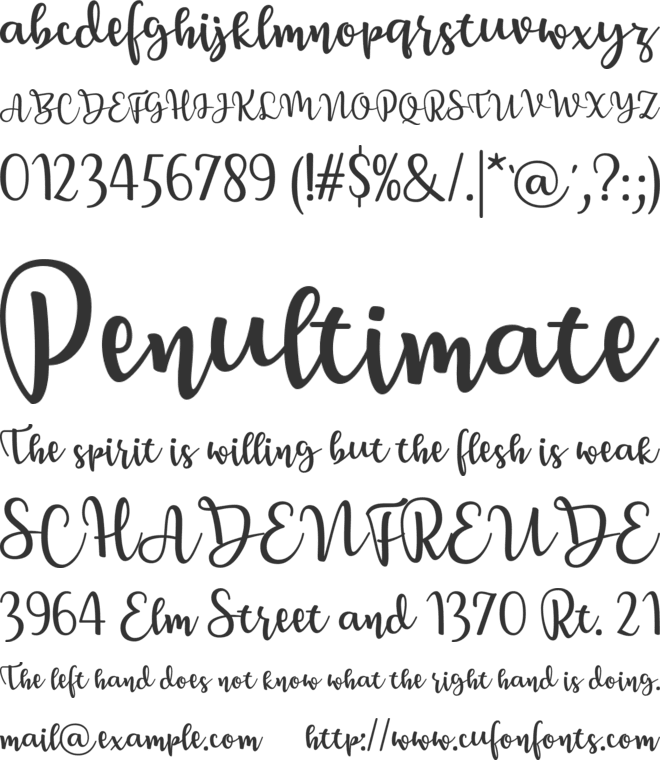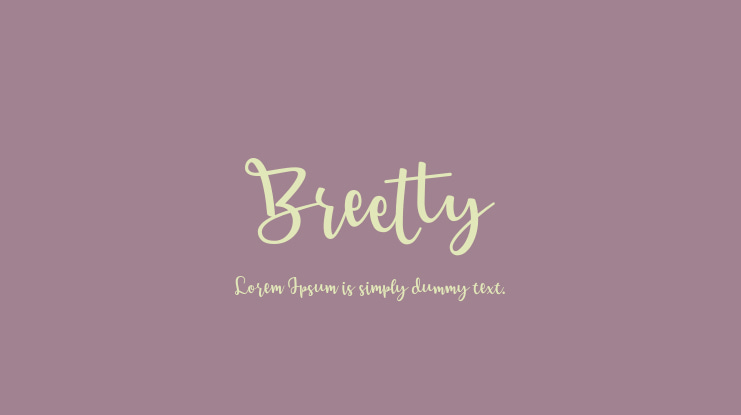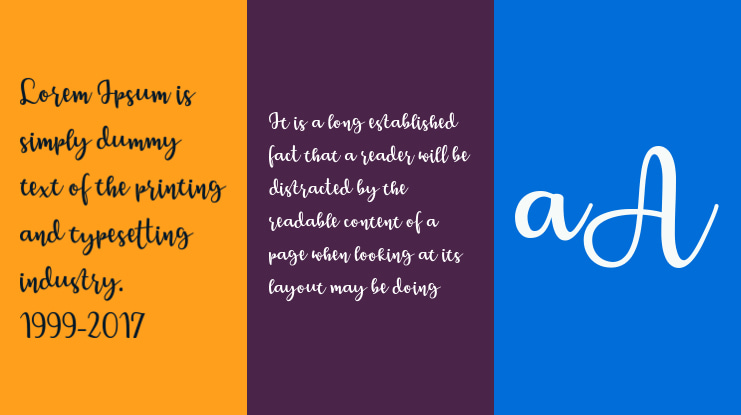
Breetty Font Family
Breetty © 7NTypes. 2017. All Rights ReservedBrertty Font is created by Situjuh Nazara ()Breetty is a fun, playful script font created by Situjuh Nazara. The Breetty font, that comes in 2 variations, offers an extensive range of glyphs and characters with (PUA encoded) swashes. This makes Breetty a versatile type that can be used in many different projects that require a personal touch.LicensePersonal use: FREE. Support me create more free for personal use font by donate as much as you appreciate it! Donation can be made via Paypal www.paypal.me/Situjuh (https://www.paypal.me/Situjuh)Commercial use: BUY it on my Creative Fabrica page: www.creativefabrica.com/product/breetty/ref/87/ (https://www.creativefabrica.com/product/breetty/ref/87/)The fonts I created also available on Creative Market: creativemarket.com/situjuhnazara (https://creativemarket.com/situjuhnazara)Contact me or visit my website [https://c7n1.com] if you have any request or question.